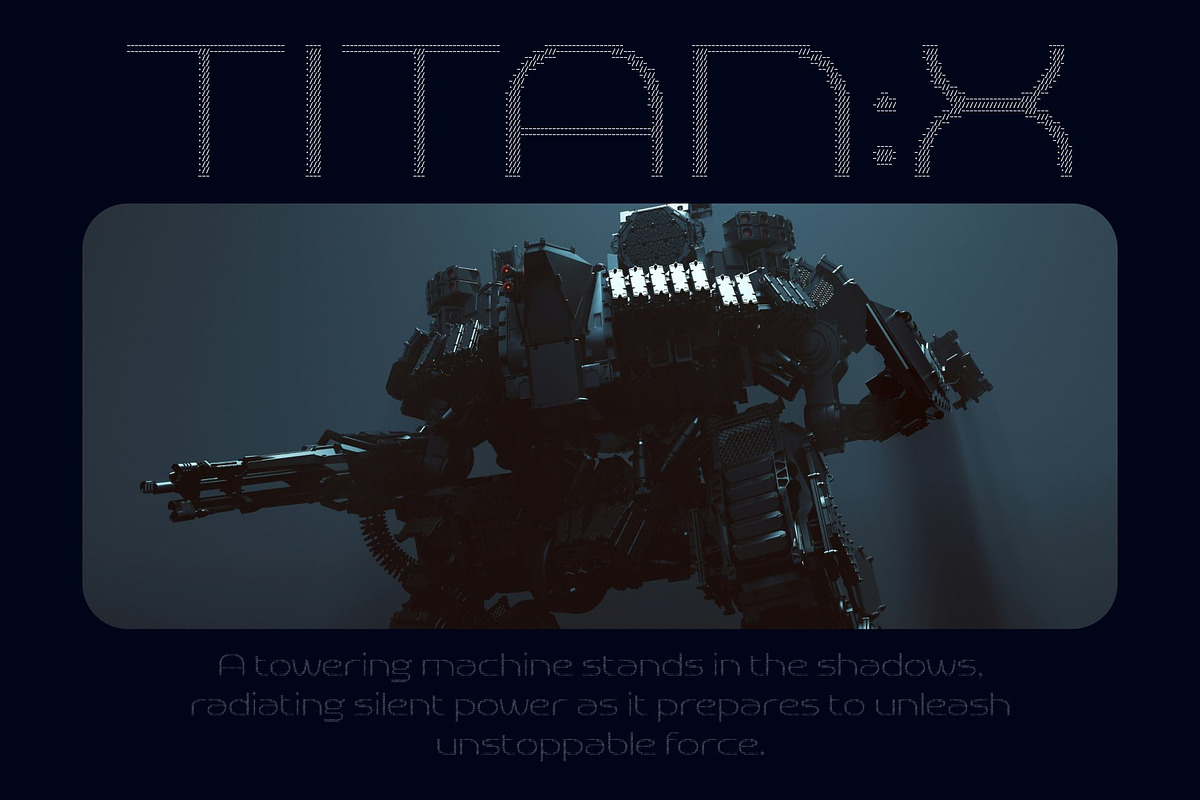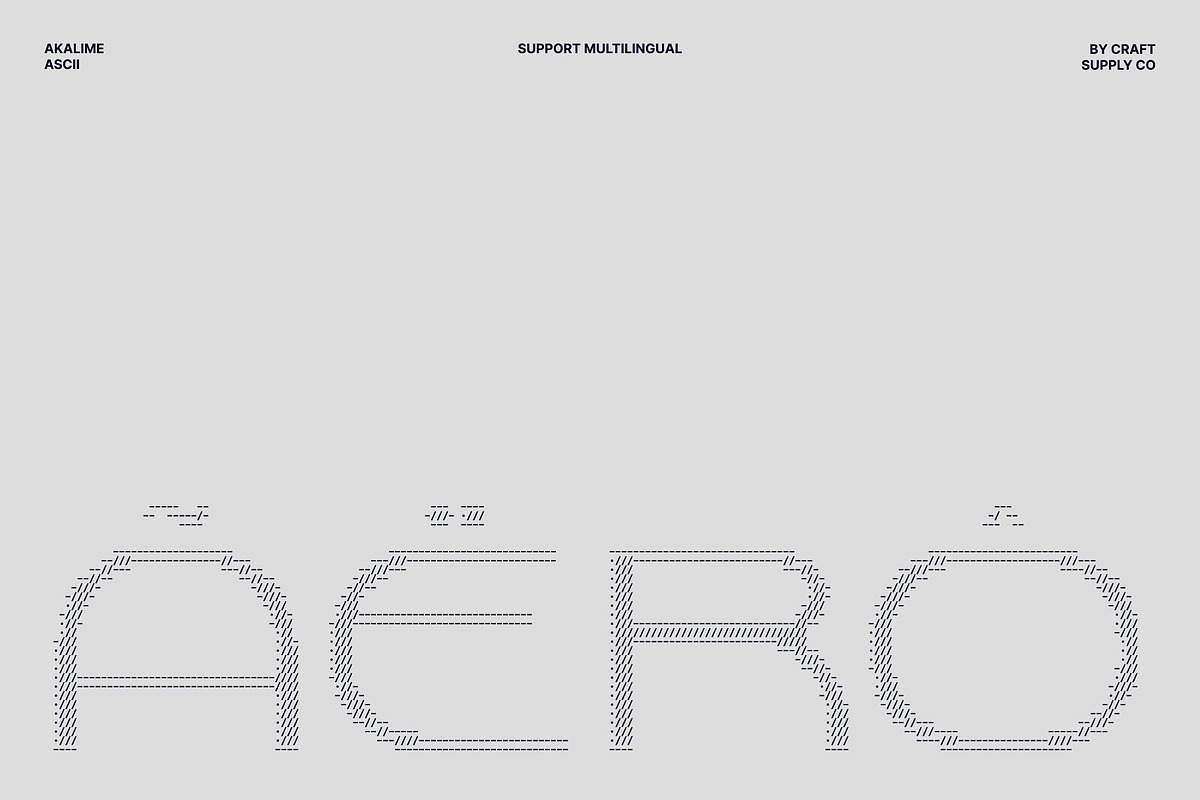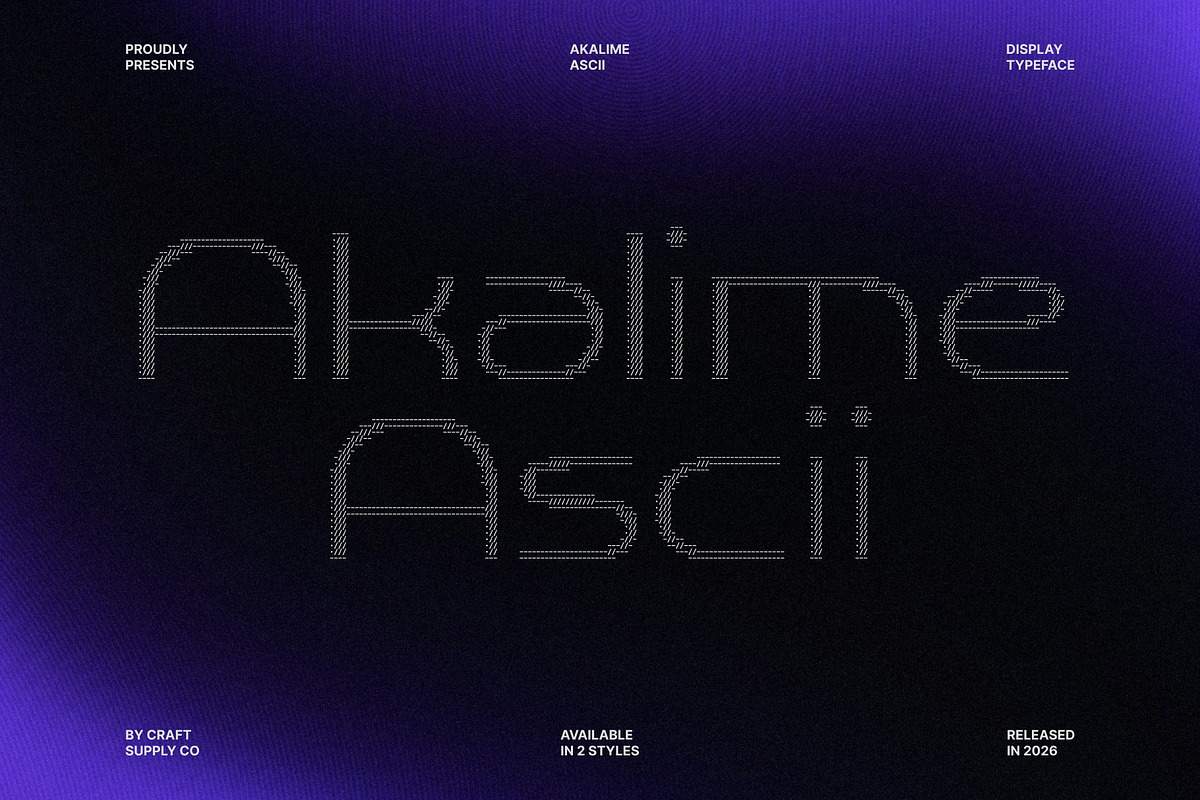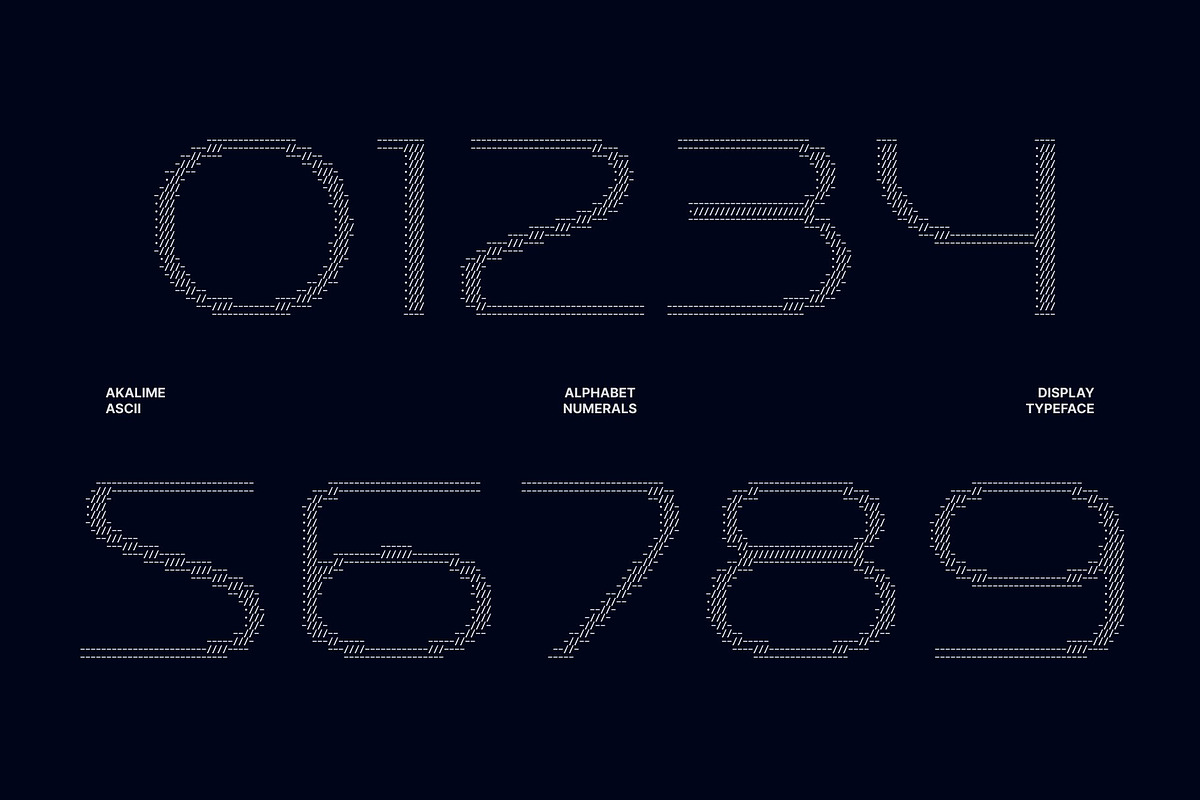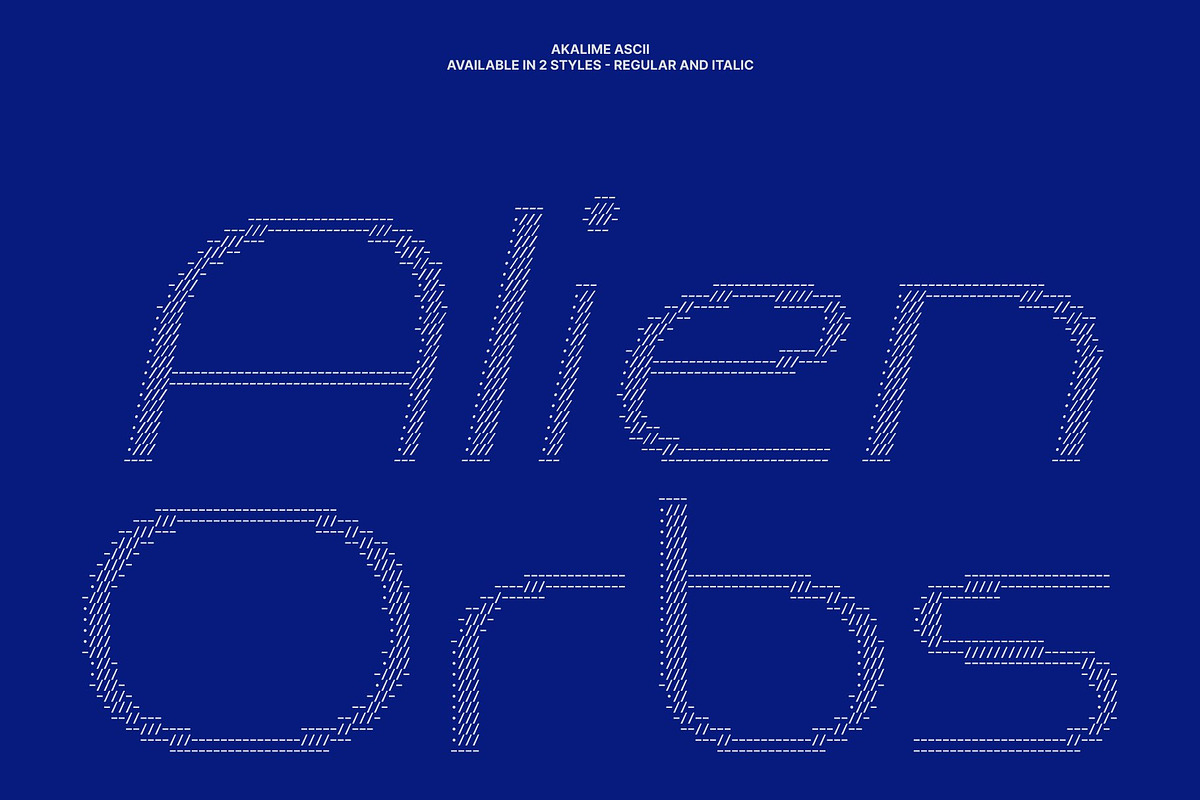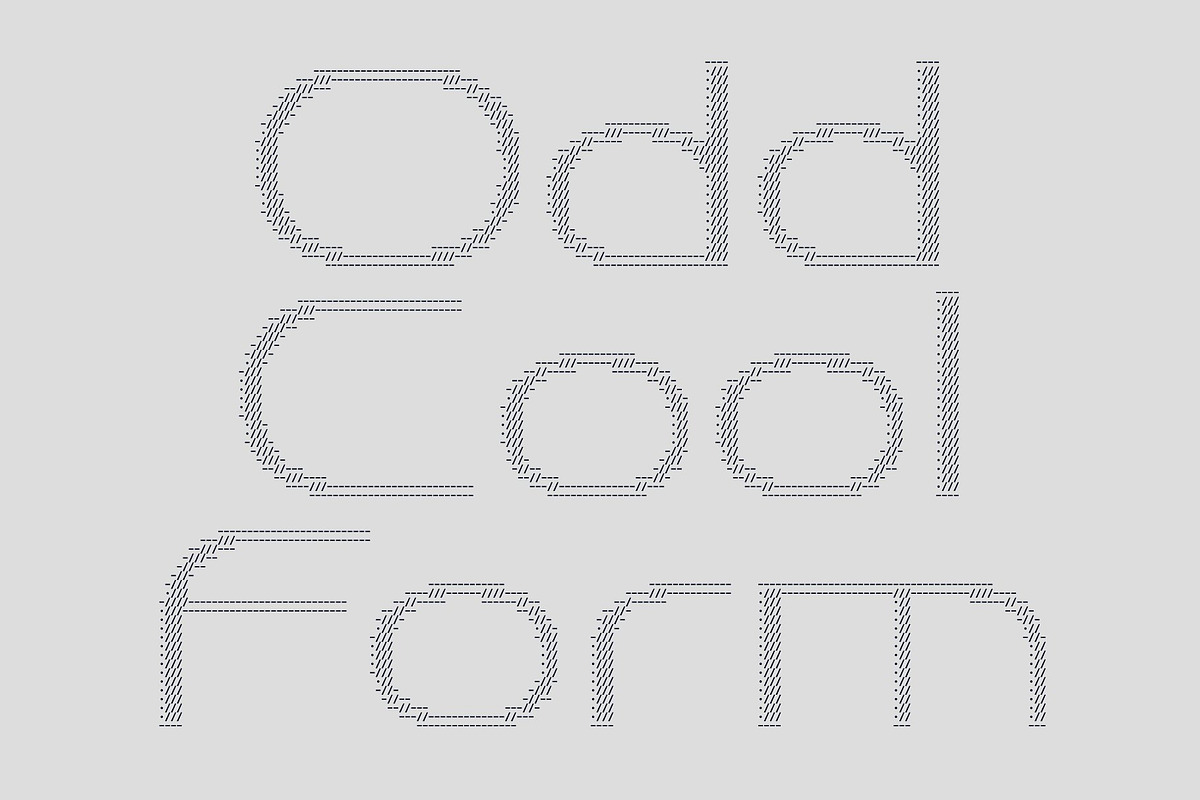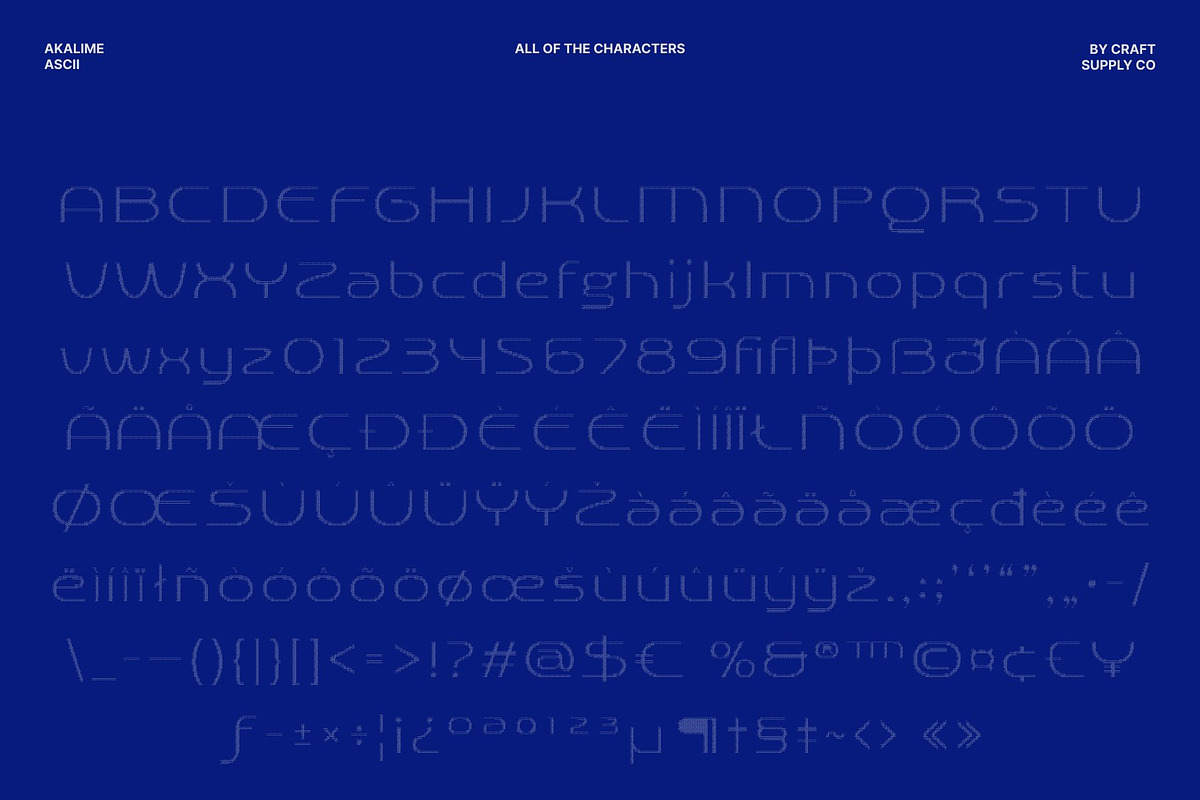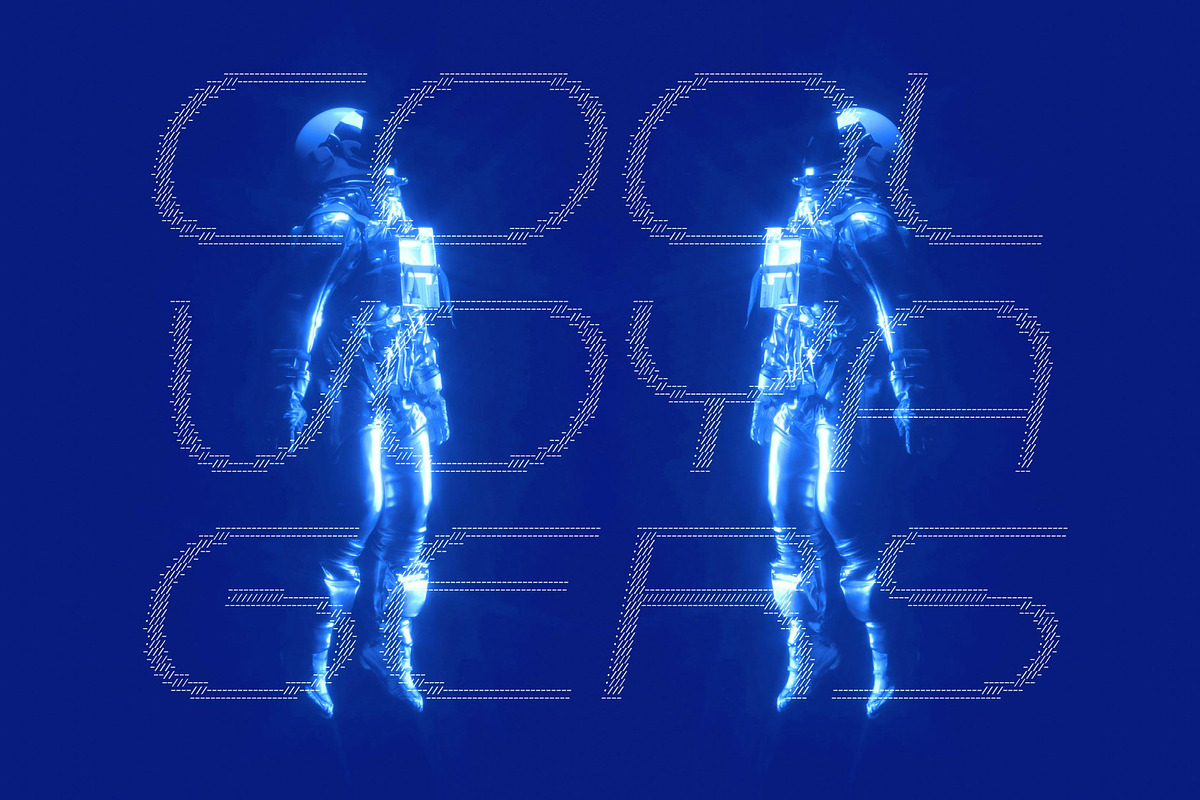
Akalime Ascii
Akalime Ascii – Modern Futuristic Font: Where Monoline Precision Meets Digital Art
Sleek Monoline Structure Reimagined in ASCII This font transforms the elegance of a monoline sans serif into a visually captivating ASCII creation. Built from carefully arranged characters and symbols, each letter becomes a digital composition that balances clarity with artistic expression. This approach allows the font to retain its clean and modern essence while introducing a distinctive, tech-inspired personality that immediately stands out in contemporary design.
Futuristic Nuances with a High-Tech Edge Every glyph in this font carries subtle futuristic cues that push the typeface beyond conventional typography. The structured geometry, precise spacing, and digital texture create a strong sci-fi atmosphere that feels both innovative and forward-thinking. This fusion of minimal monoline shapes and ASCII construction delivers a typeface that feels engineered for tomorrow’s visual communication.
Versatile Across Digital and Print Mediums This font adapts seamlessly across a wide range of creative platforms. From digital interfaces and website headers to posters, packaging, and editorial layouts, the font maintains clarity while adding a bold technological character. Its balanced structure keeps long titles readable while still offering enough personality to become a visual centerpiece in any design.
Empowering Creativity in Tech-Driven Projects Designed as a tool for creative exploration, this font excels in cyberpunk visuals, electronic music artwork, gaming graphics, terminal UI themes, and tech branding. It helps designers transform ordinary text into futuristic visual statements, making every message feel innovative and memorable.
Akalime Ascii Regular
Akalime Ascii Italic